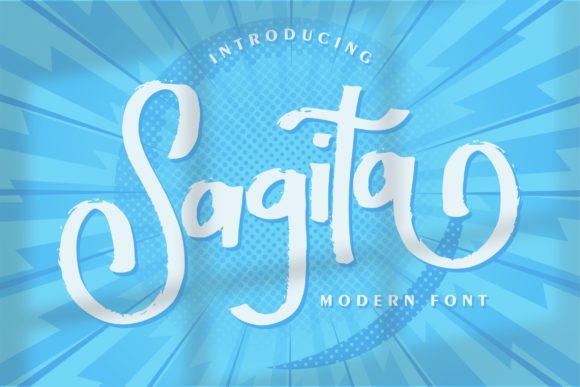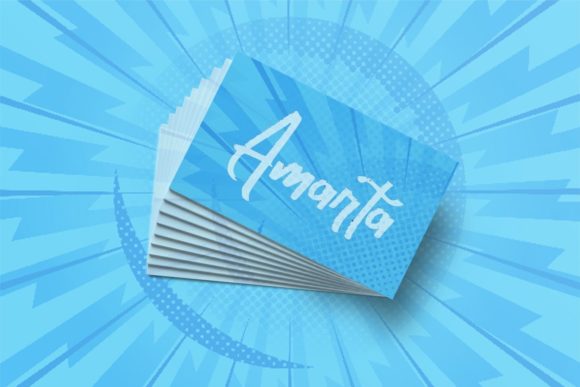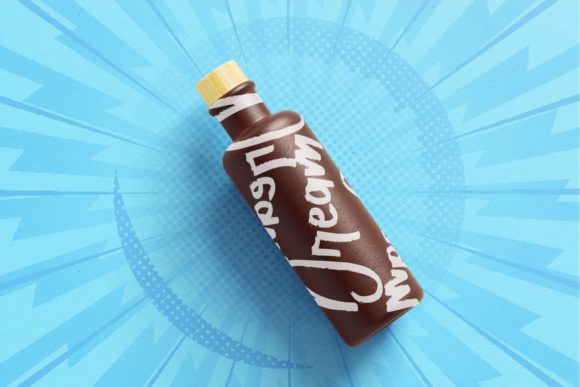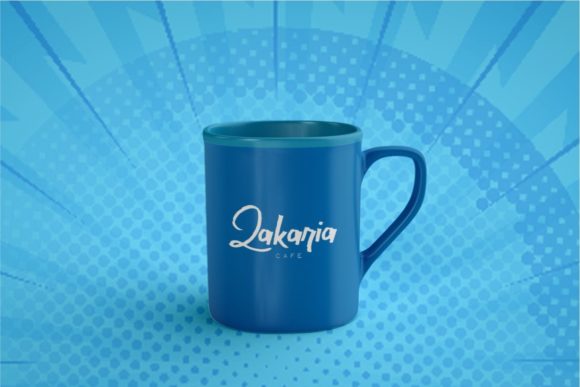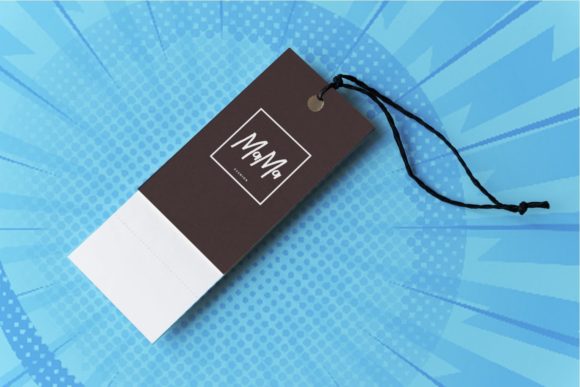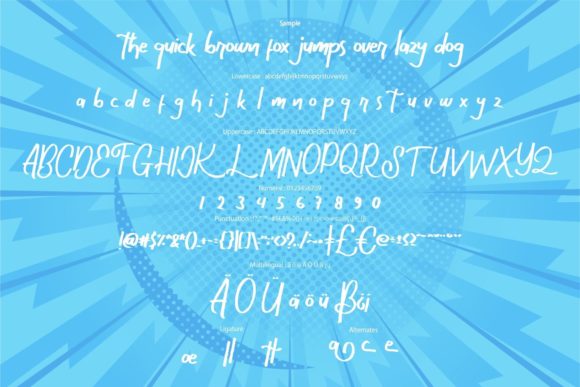
Sagita Font
About Sagita Font
Sagita is a lovely and timeless handwritten font that brings a touch of elegance and charm to your designs. With its flowing letterforms and unique details, this font is the perfect choice for creating eye-catching logos, branding materials, and quotes that stand out.
Each letter in Sagita has been carefully crafted with a beautiful touch, giving it a distinct and personal feel. The natural flow of the strokes adds a sense of grace and sophistication to your designs, making them visually appealing and captivating.
Whether you’re designing a logo for a boutique, creating branding materials for a wedding planner, or crafting inspirational quotes for social media, Sagita will elevate your designs and make them come alive. Its timeless quality ensures that your designs will remain relevant and appealing for years to come.
The versatility of Sagita allows it to be used in various design contexts. It can be paired with other fonts to create interesting and harmonious typography combinations, or it can shine on its own as the main focal point of your design. Its simplicity and elegance make it suitable for both bold and minimalist design styles.
Sagita is a font that is easy to work with and brings a touch of elegance to any project. Its PUA encoding allows for easy access to all the unique glyphs and swashes, giving you the freedom to customize and create designs that truly reflect your vision.
In summary, Sagita is a lovely and timeless handwritten font that adds elegance and charm to your designs. With its unique touch and flowing letterforms, it is the perfect choice for eye-catching logos, branding materials, and quotes. Its versatility and ease of use make it a valuable asset for designers seeking to create captivating and memorable designs.